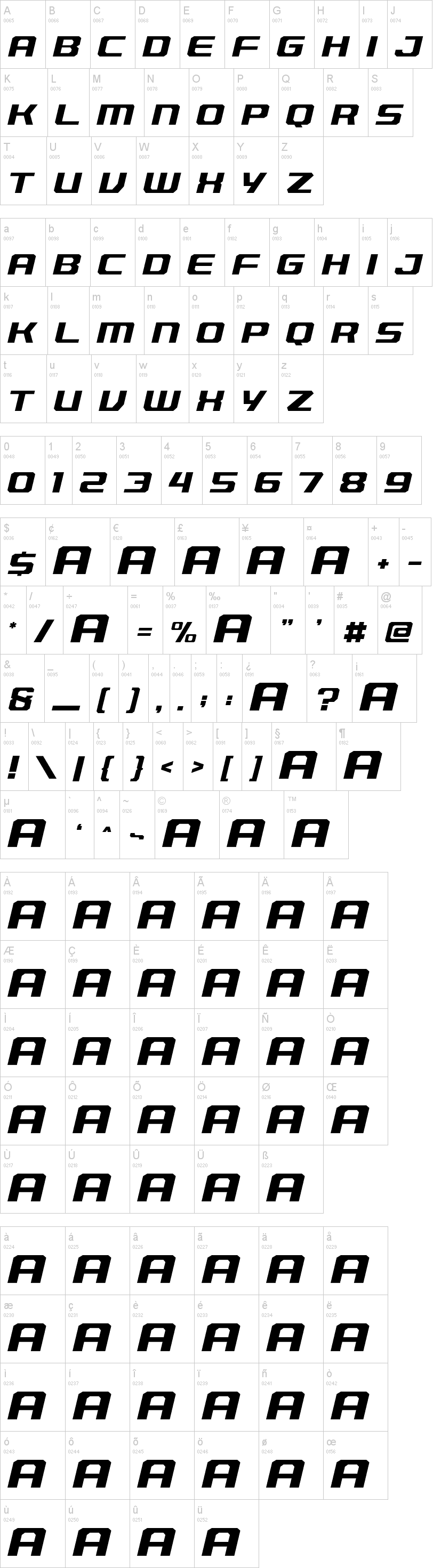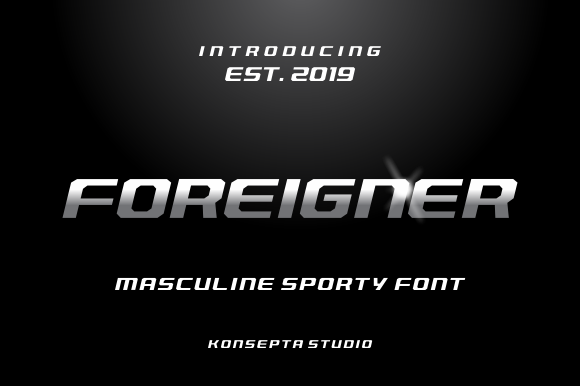
Proudly present our next font experimental project, Foreigner. Foreigner is a masculine, elegant and sporty font, inspired by the design of retro car emblems. It's very macho and elegant, but has a distinct sporty feel, which makes is suitable for any design projects that requires a flashy, and cool touch, but still minimalist.